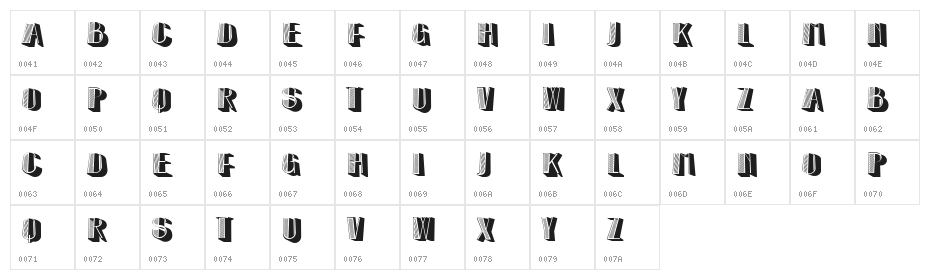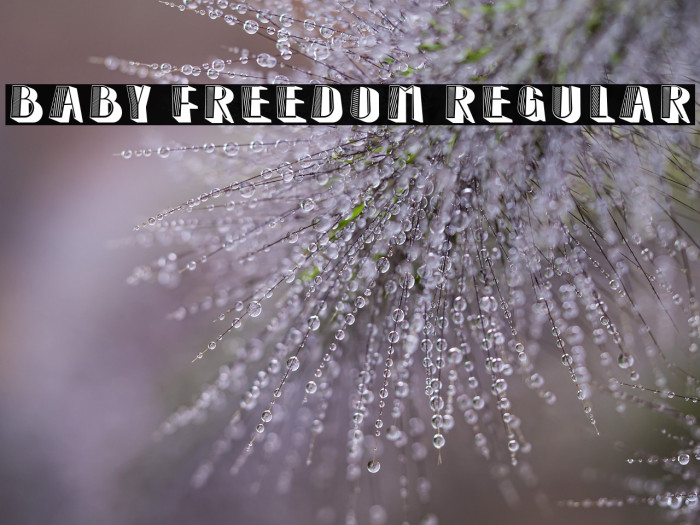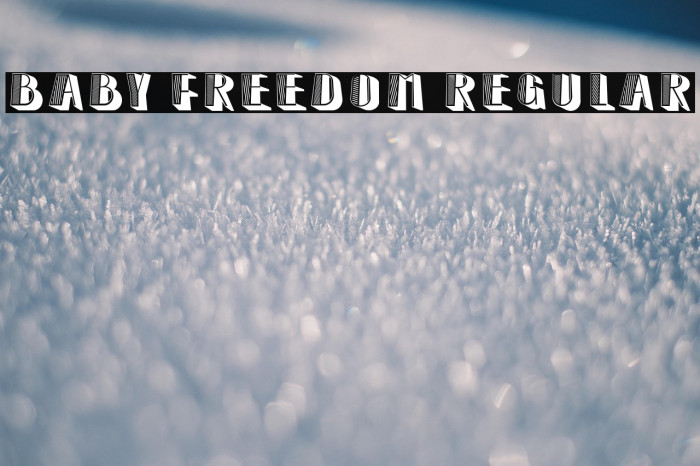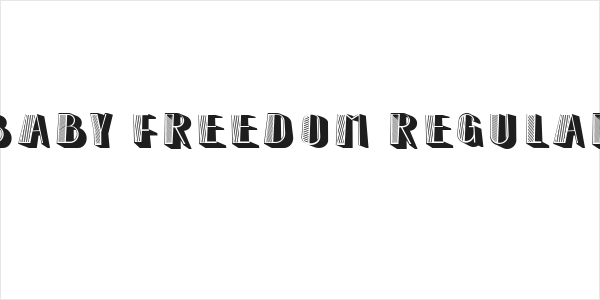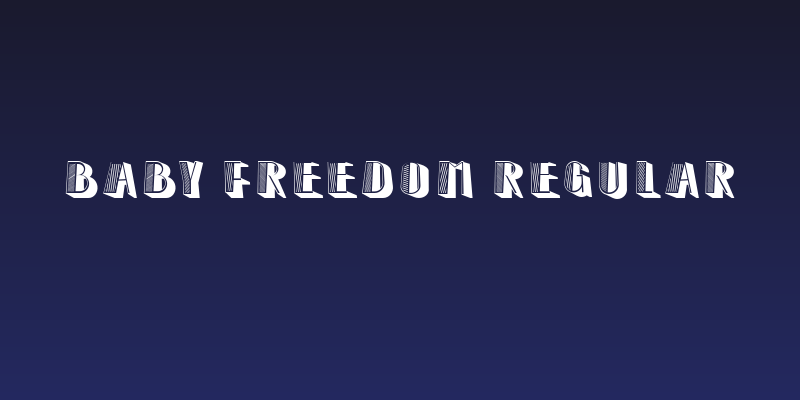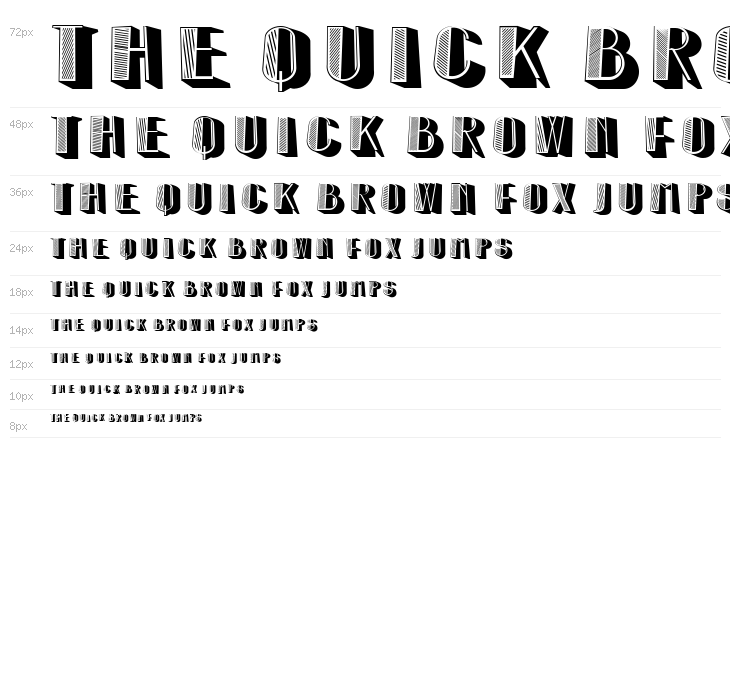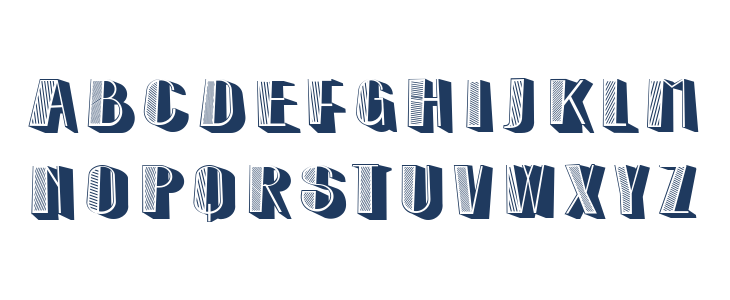
Baby Freedom Regular Font
Baby Freedom Regular Description
This font features a bold and playful design with a three-dimensional effect, achieved through the use of shadowing and line patterns within each character. The uppercase letters are particularly striking, with a mix of solid fills and striped textures that create a dynamic and eye-catching appearance. The font's unique style is both modern and retro, making it versatile for various design projects. Its boldness ensures visibility and impact, while the intricate details add a layer of sophistication. The font is ideal for creative and artistic applications where a statement is needed.